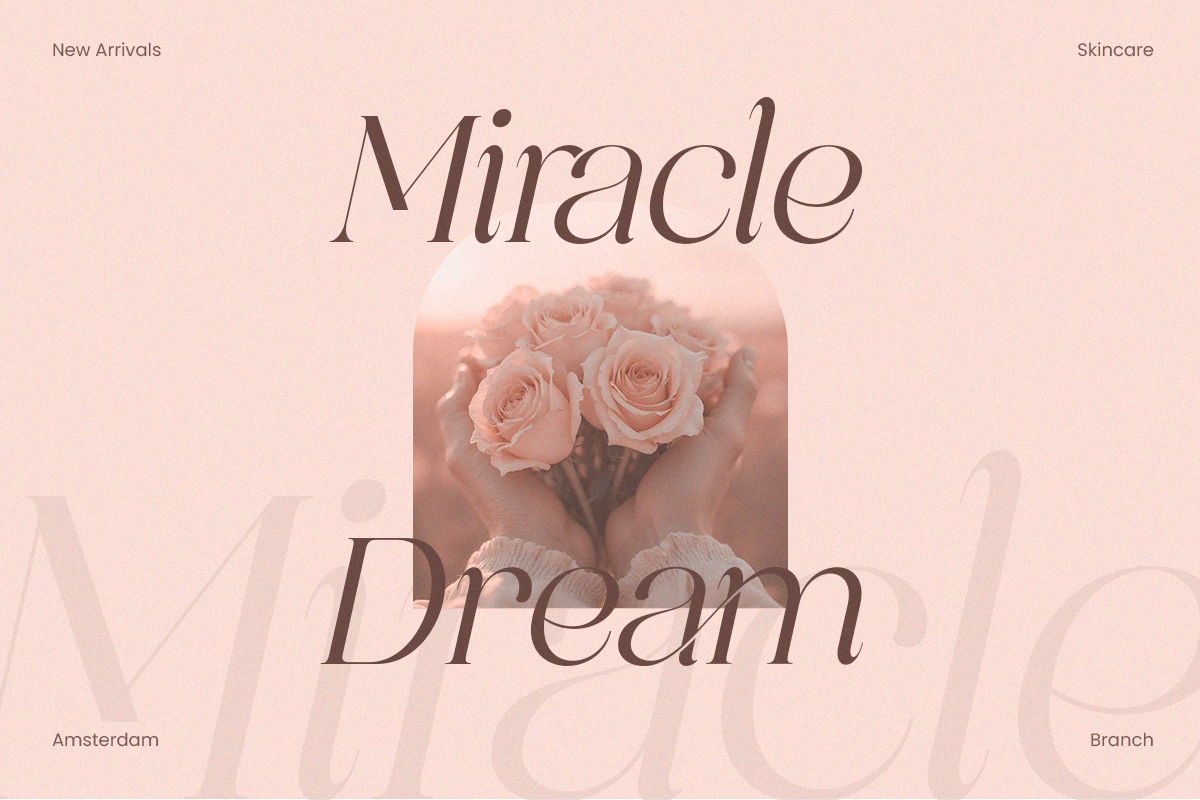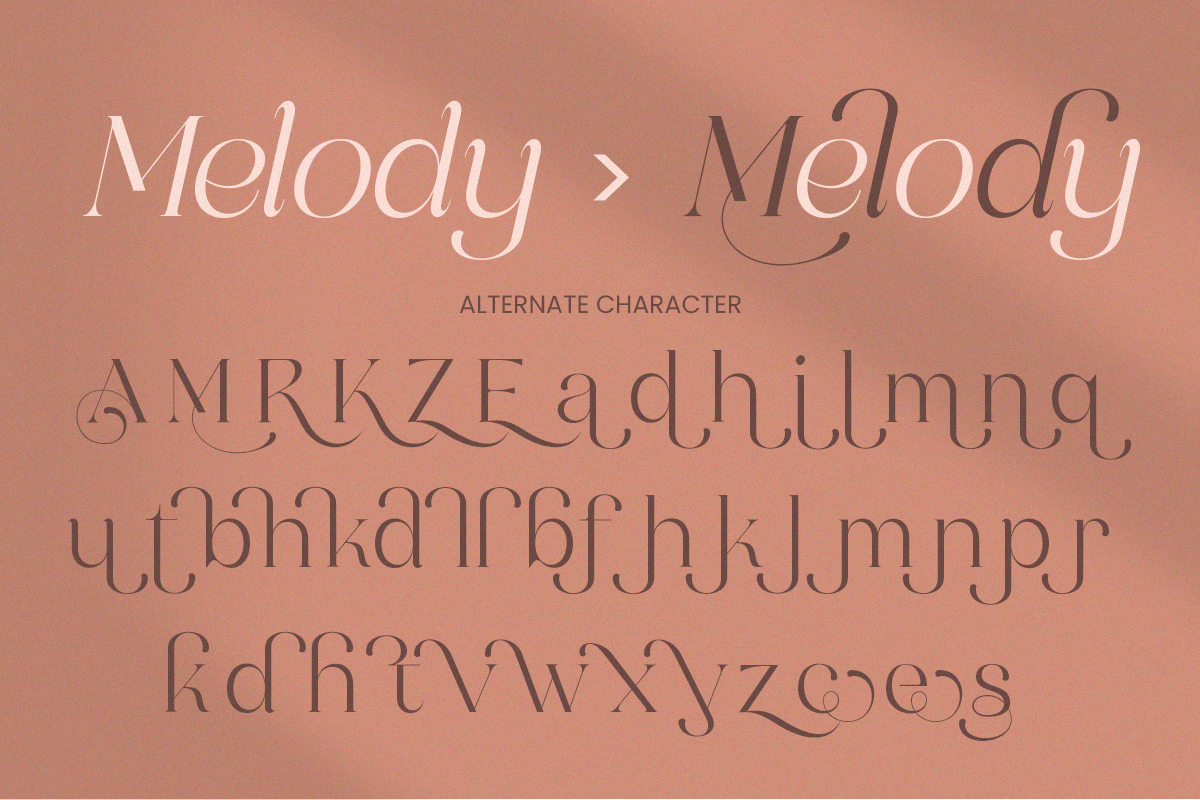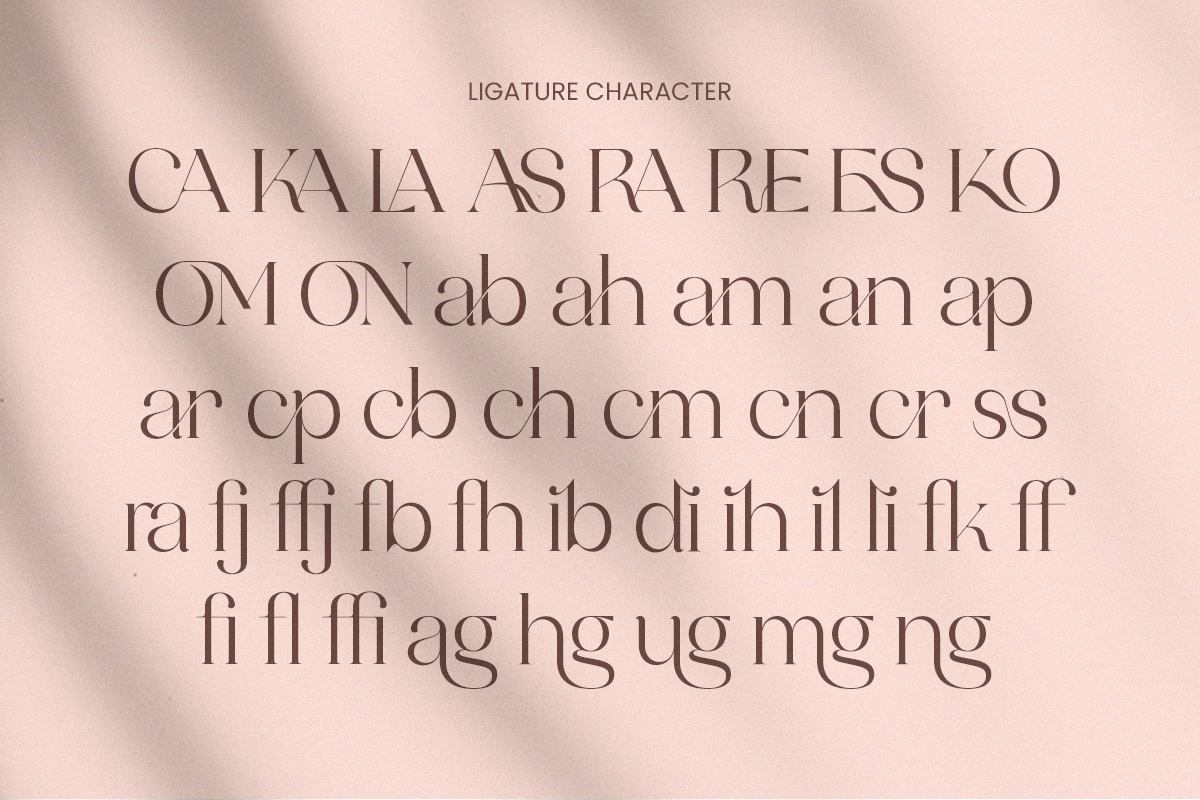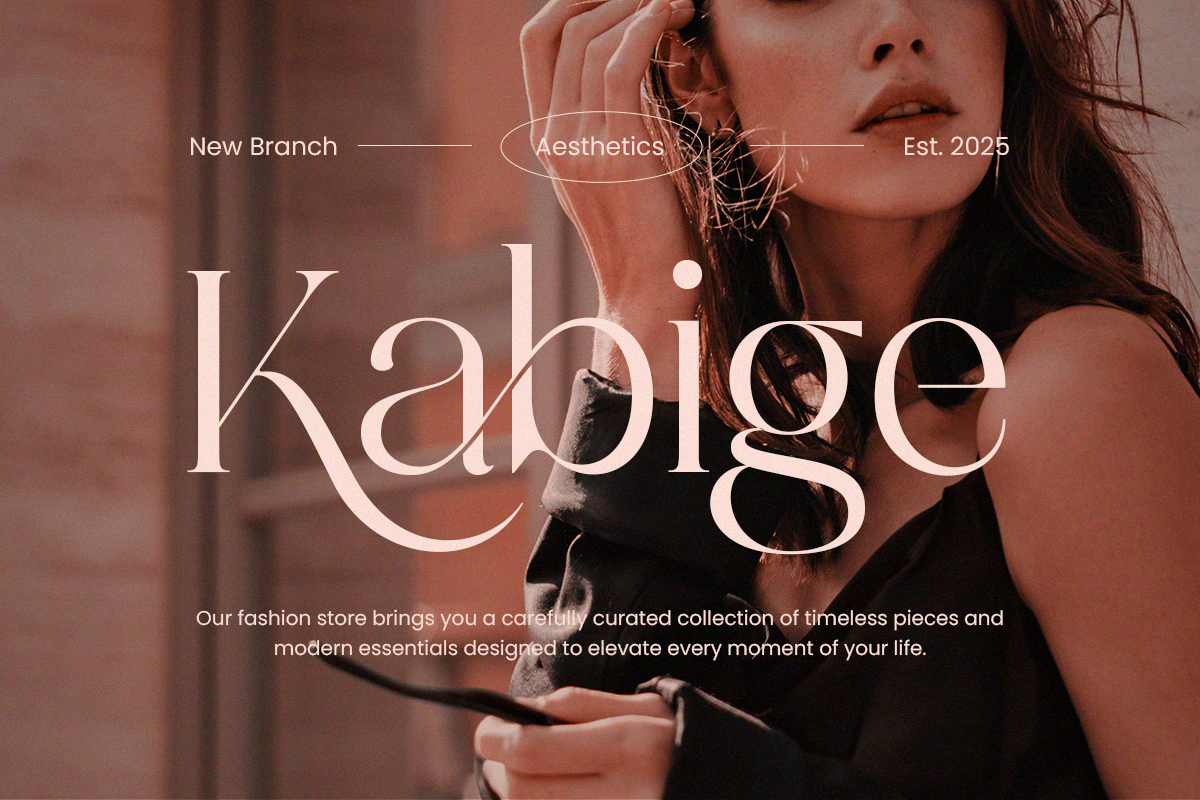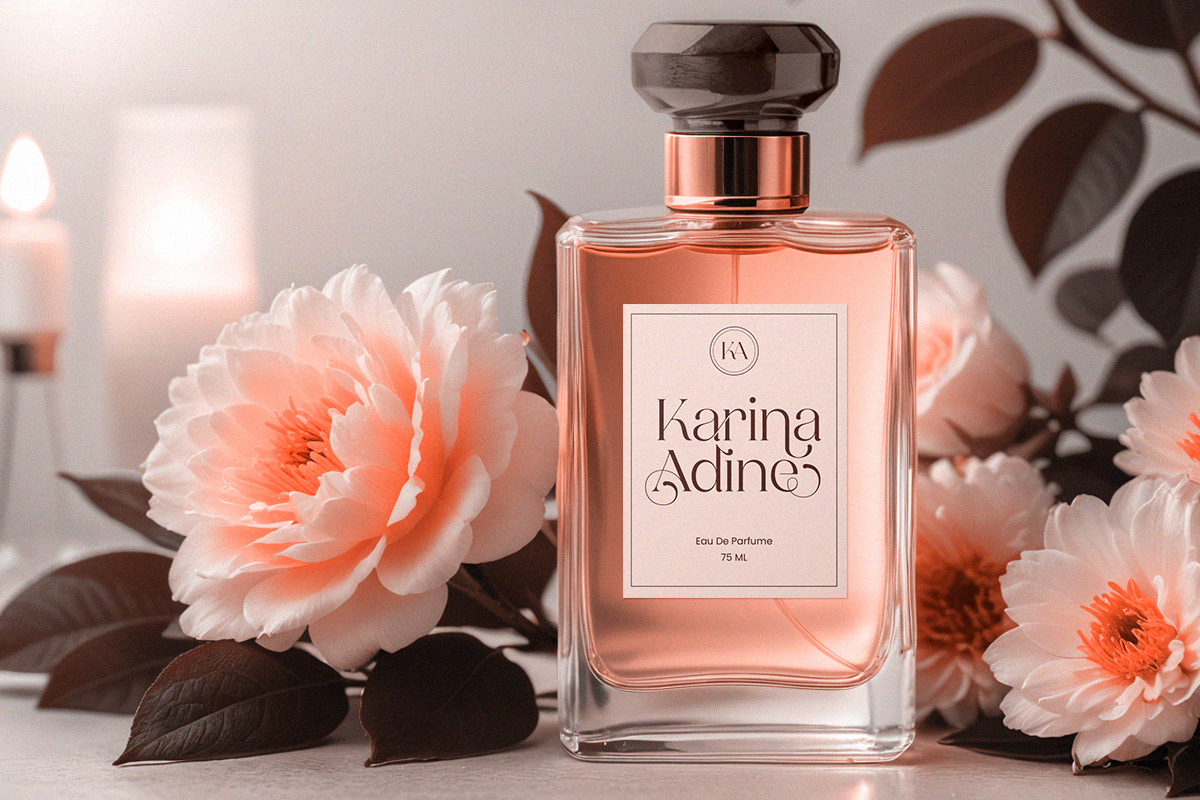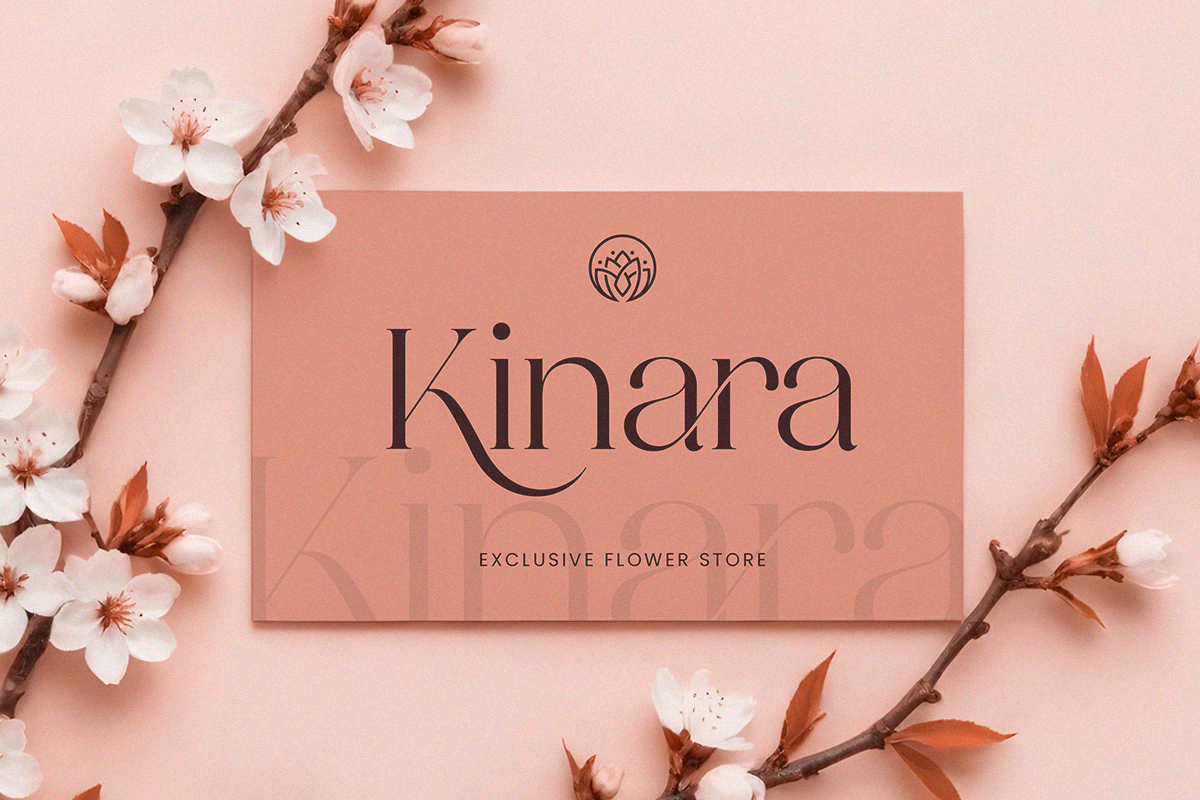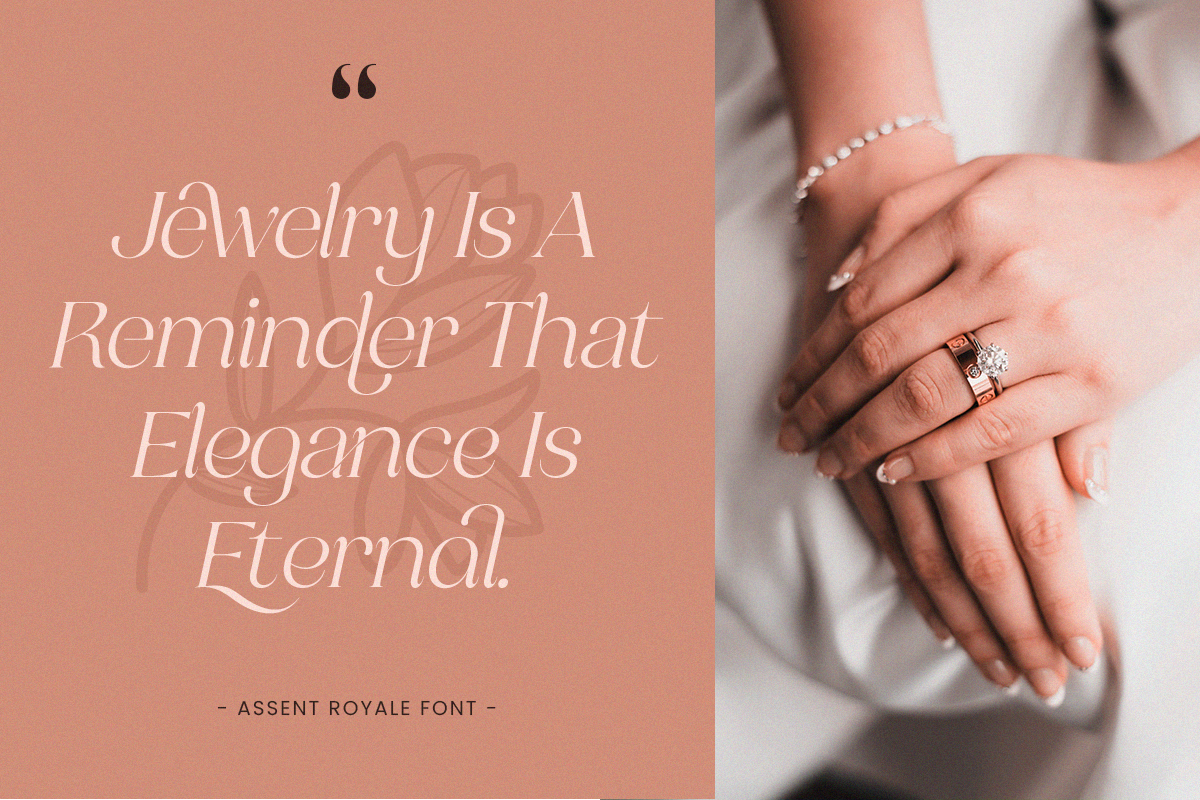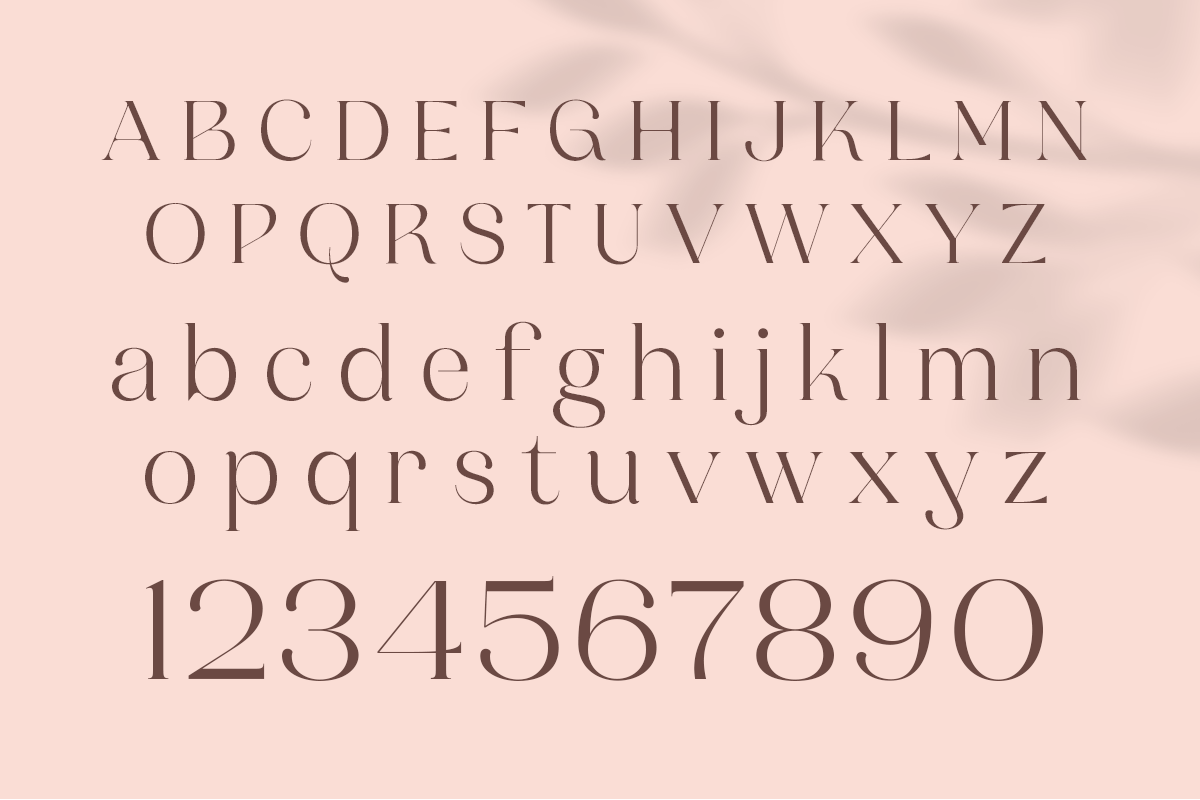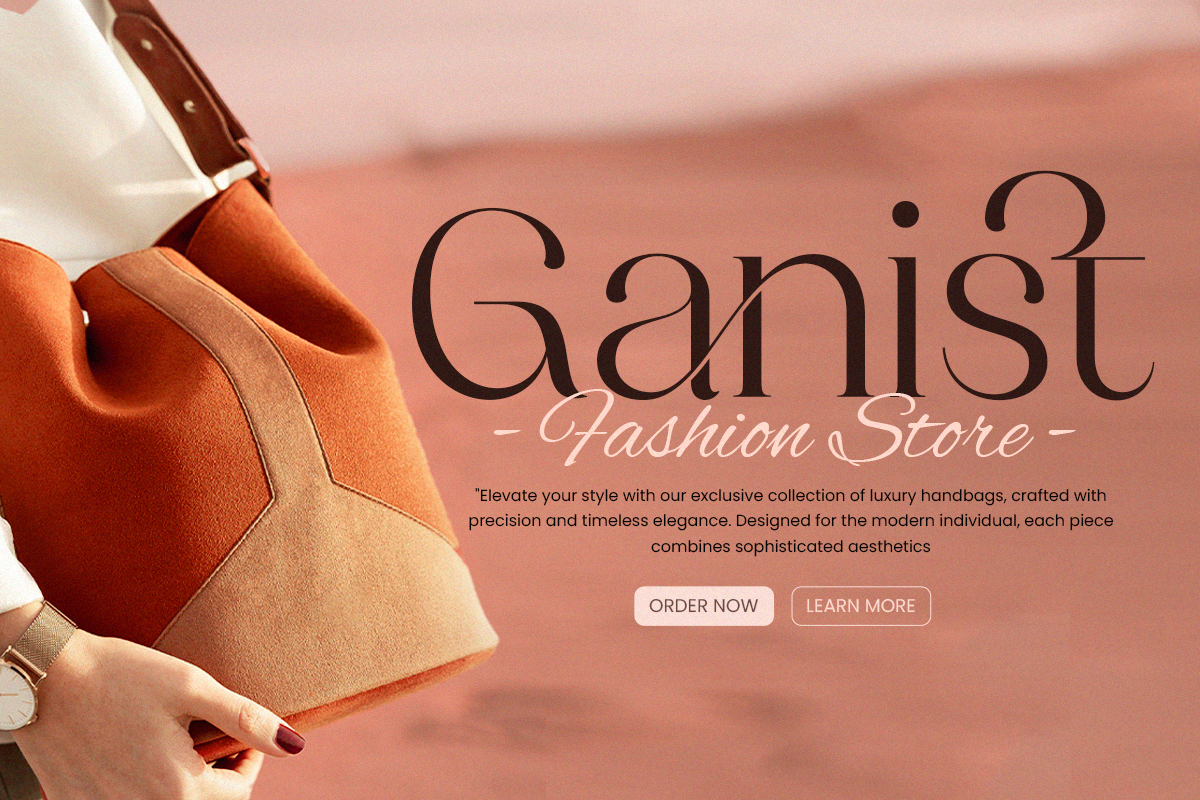
Assent Royale - Luxury Serif
Assent Royale a Luxury Serif combines modern sophistication with timeless elegance, making it the perfect choice for upscale and stylish designs. Whether you're creating branding for luxury products, high-end fashion labels, or premium packaging, Assent Royal Luxury Serif adds a touch of class and refinement.
This font’s distinctive style is ideal for editorial layouts, wedding invitations, and business cards, providing a sense of exclusivity and charm, also shines in logos and headlines, offering a versatile yet elegant solution for designers aiming to evoke modern luxury.
Bring a touch of elegance to your designs with Assent Royale Luxury Serif—crafted to impress and captivate!
- uppercase and lowercase
- numerals and punctuation
- OpenType features (ligatures and alternates)